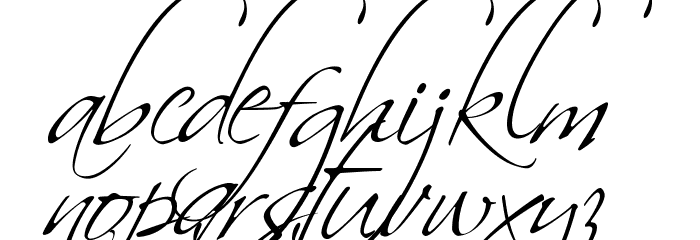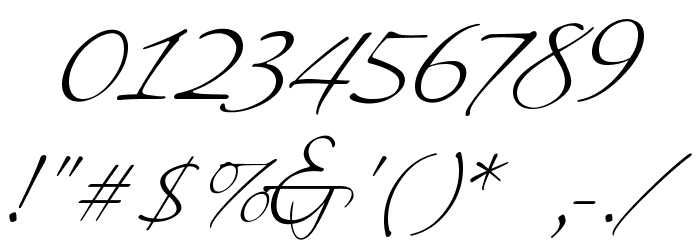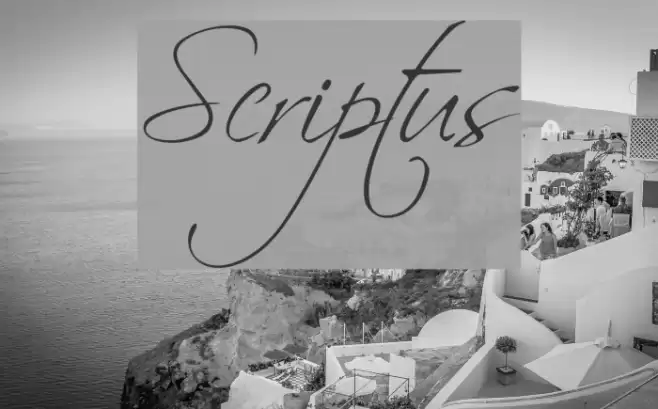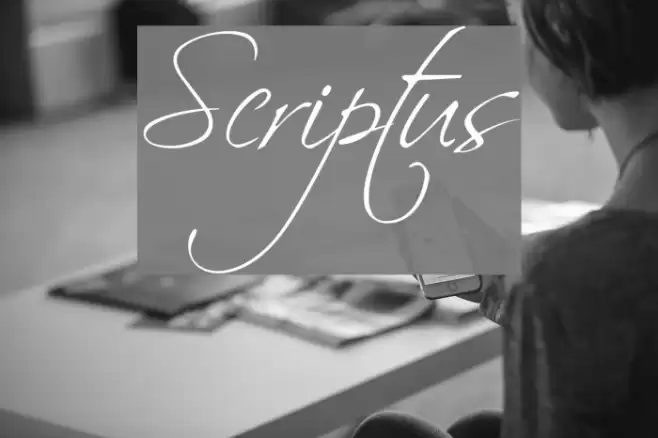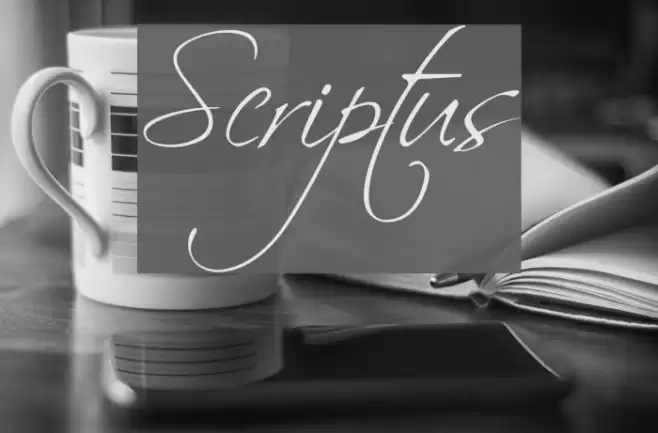
Scriptus Font
1999-2001 Apostrophic Labs. All rights reserved. Scriptus is derived from "Scriptina", with less closed laces and most simplified paths.